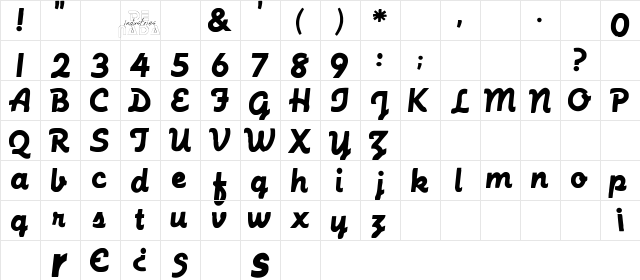
MachineScript Regular
Design Context for MachineScript Typeface
MachineScript flows with the natural rhythm of handwritten lettering, making it ideal for designs that call for warmth and personal expression.